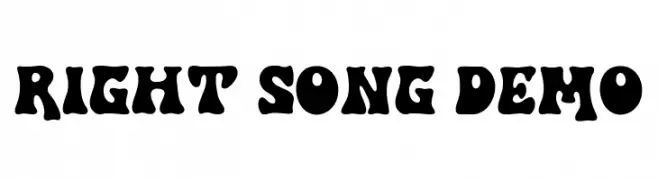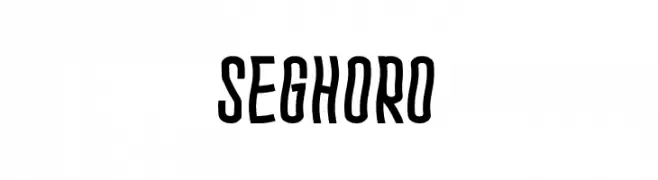
A bold, rounded font with a playful and friendly style.
An ornate and decorative font with elaborate curves and flourishes.
A bold, brush-style font with dynamic and energetic strokes.
A bold, military-inspired font with geometric shapes and decorative chevrons.
A bold, dynamic font with elongated, curved strokes and a modern, condensed appearance.
A bold, handwritten font with a playful and energetic style.
A bold, playful font with thick, rounded strokes and whimsical curves.
A bold, playful font with rounded, bulbous letterforms and a retro vibe.
An ornate, calligraphic font with sharp, angular strokes and intricate flourishes.